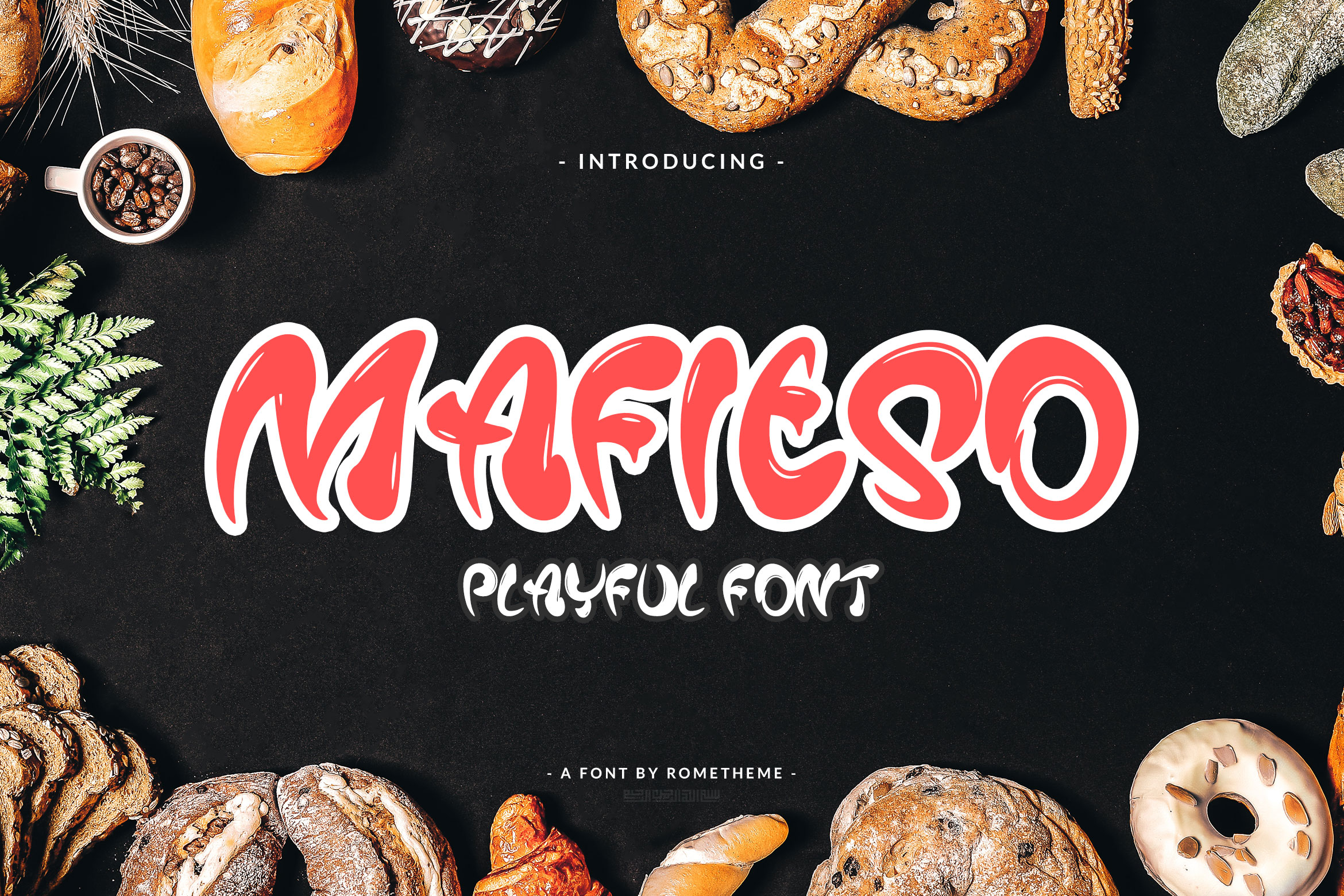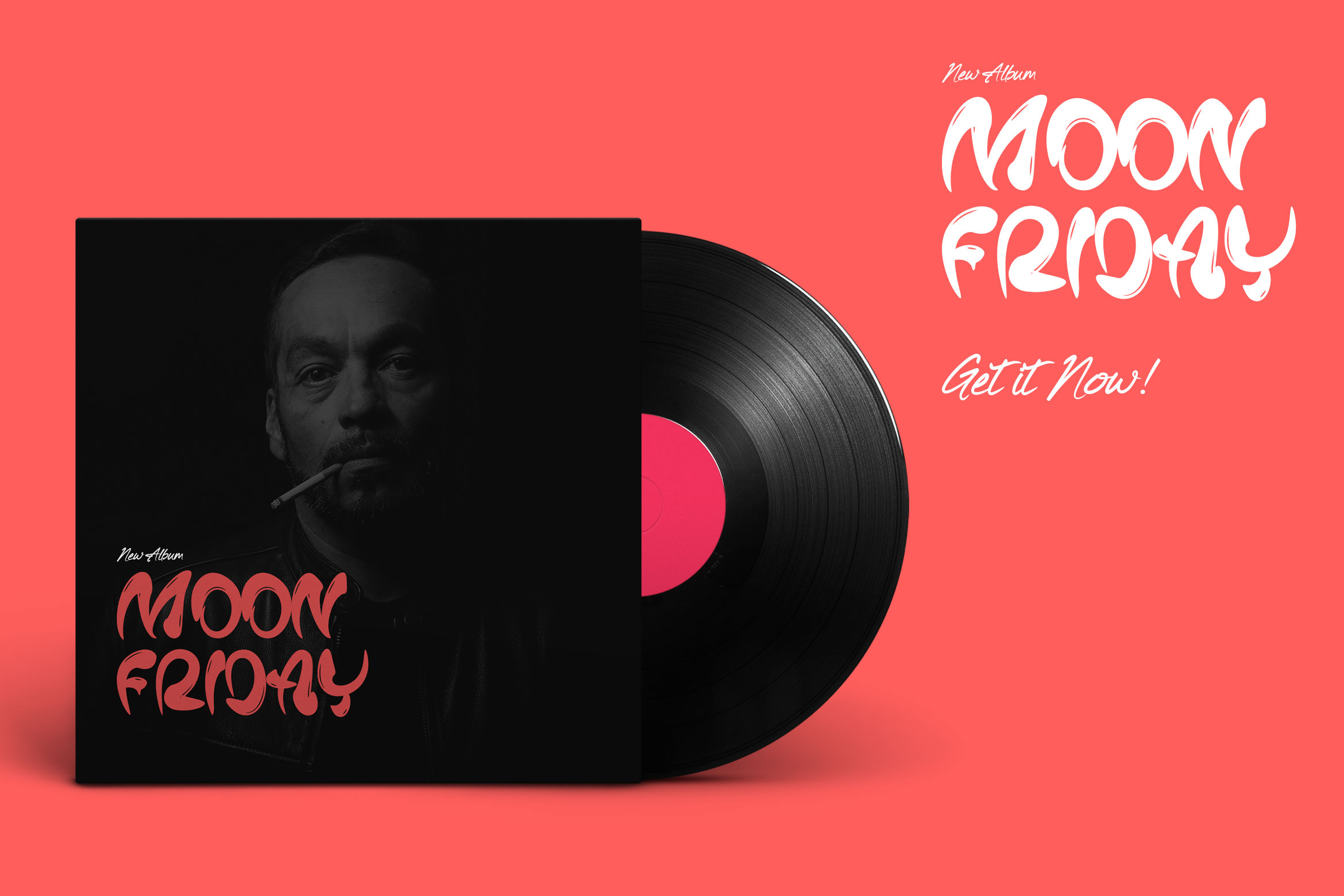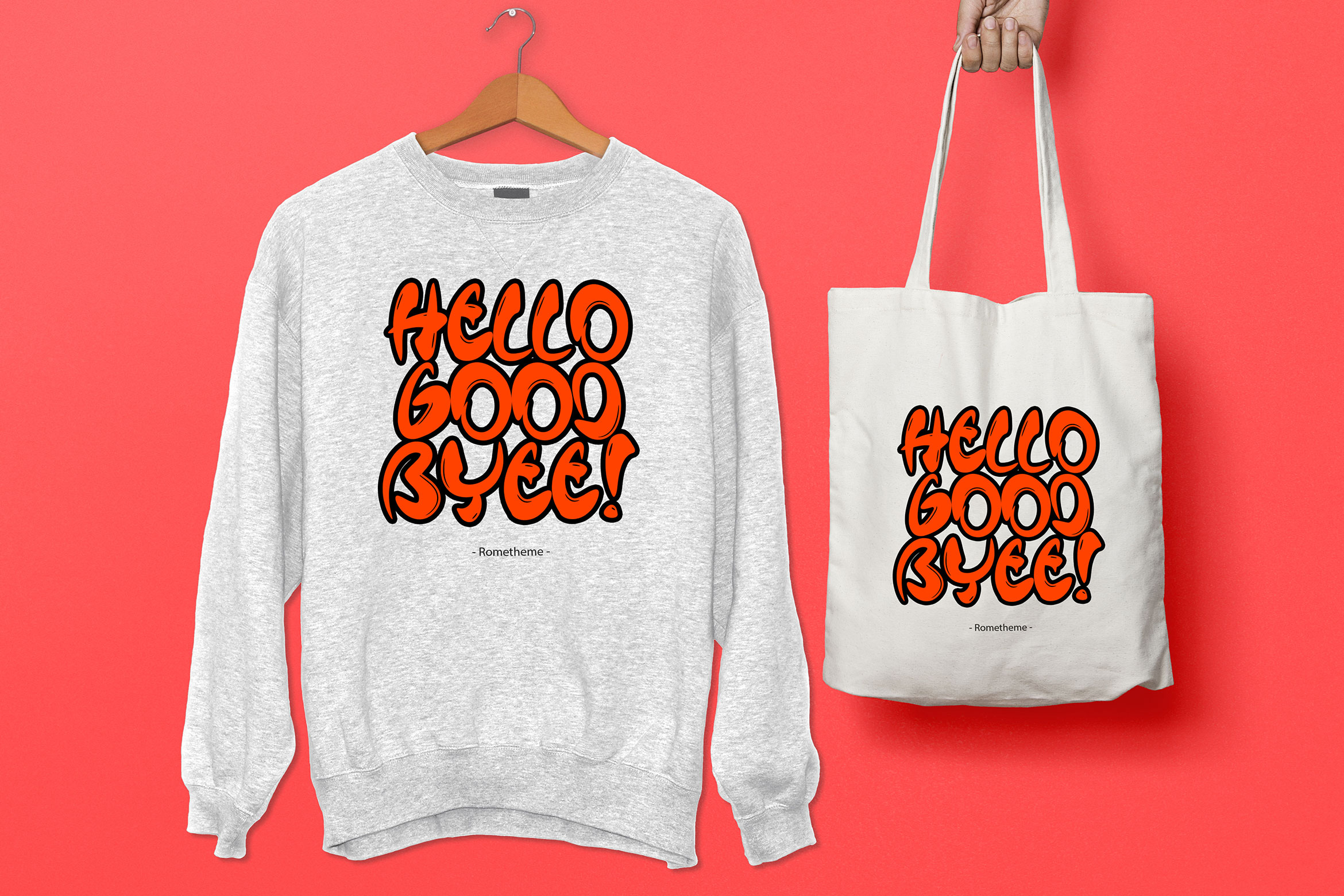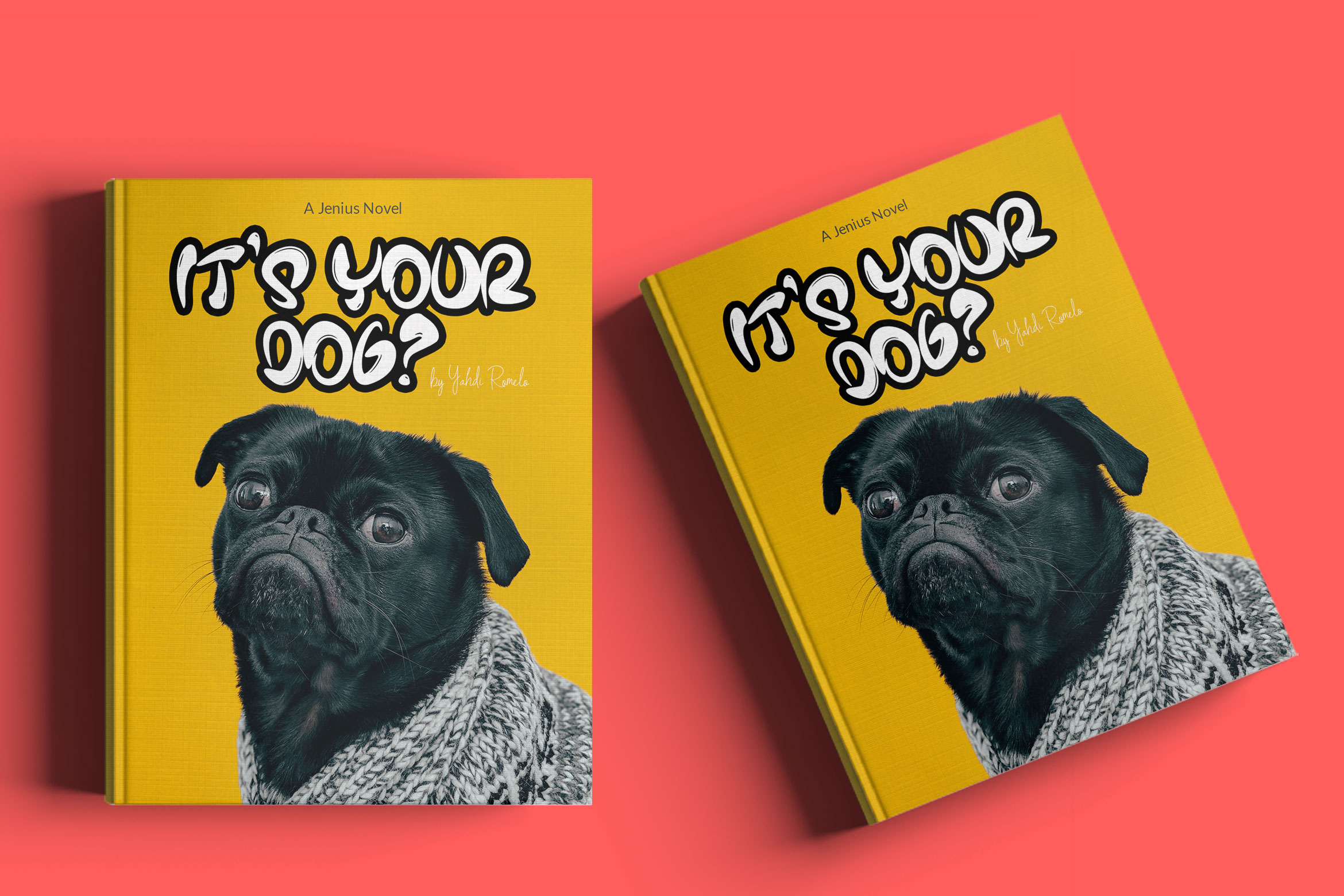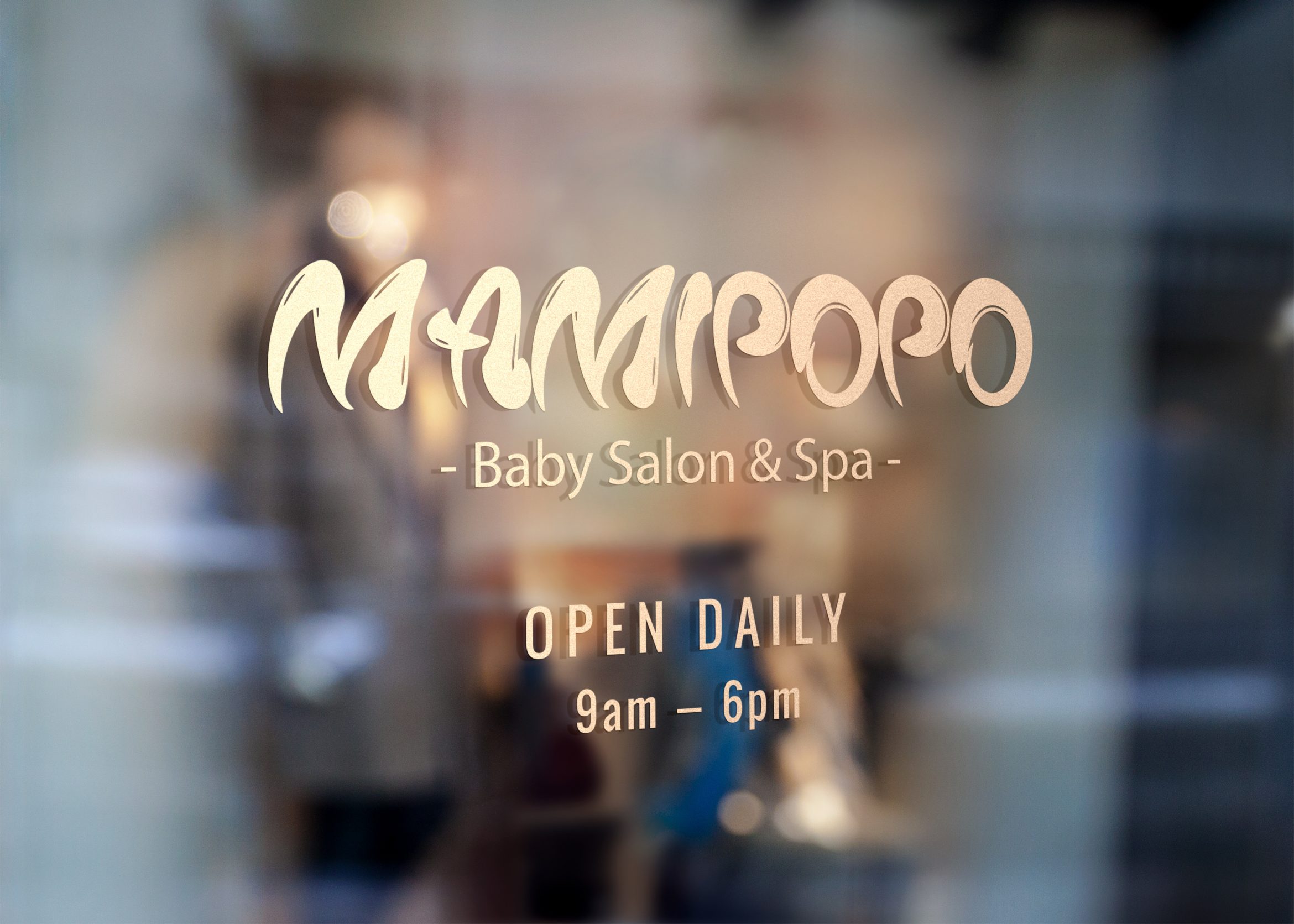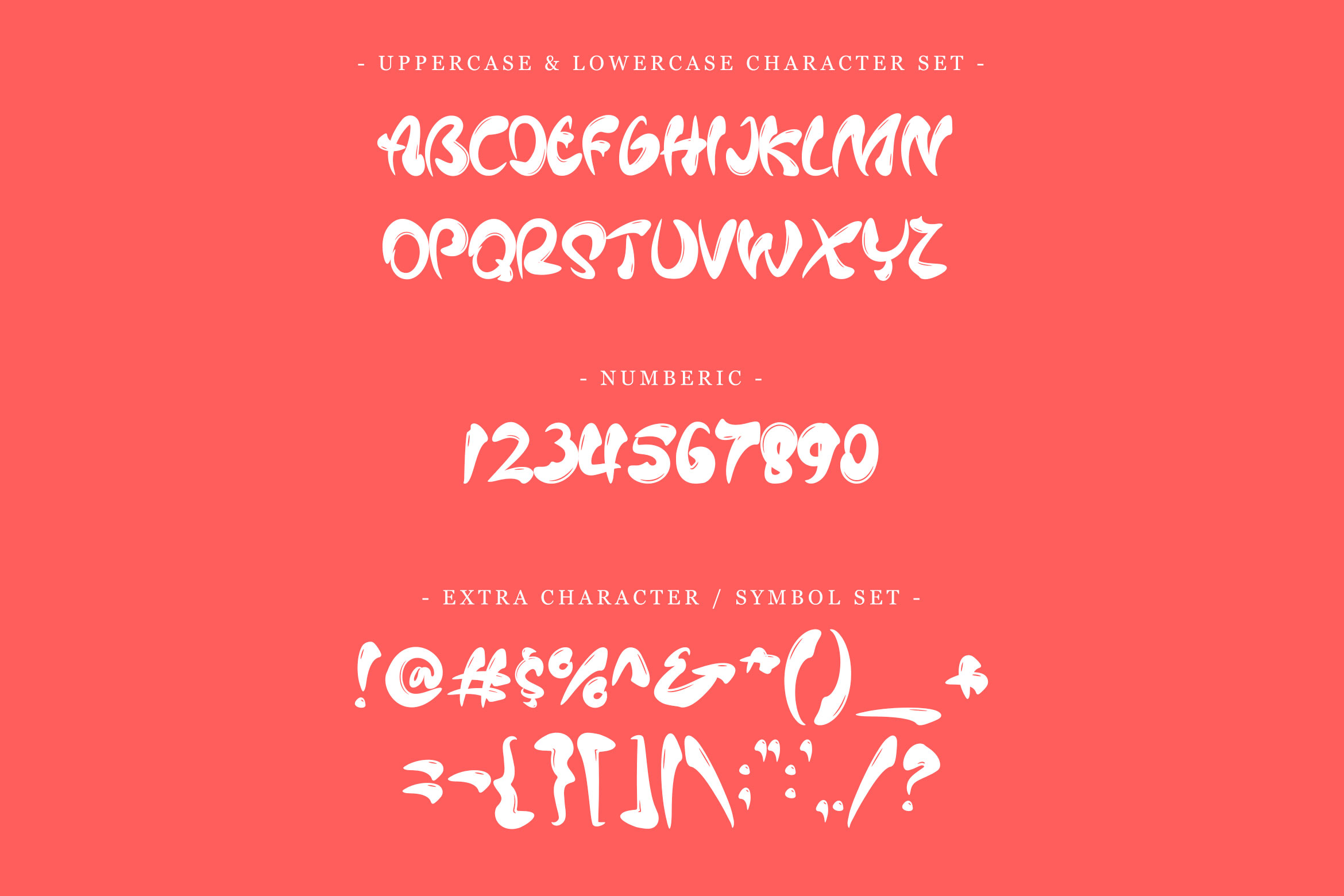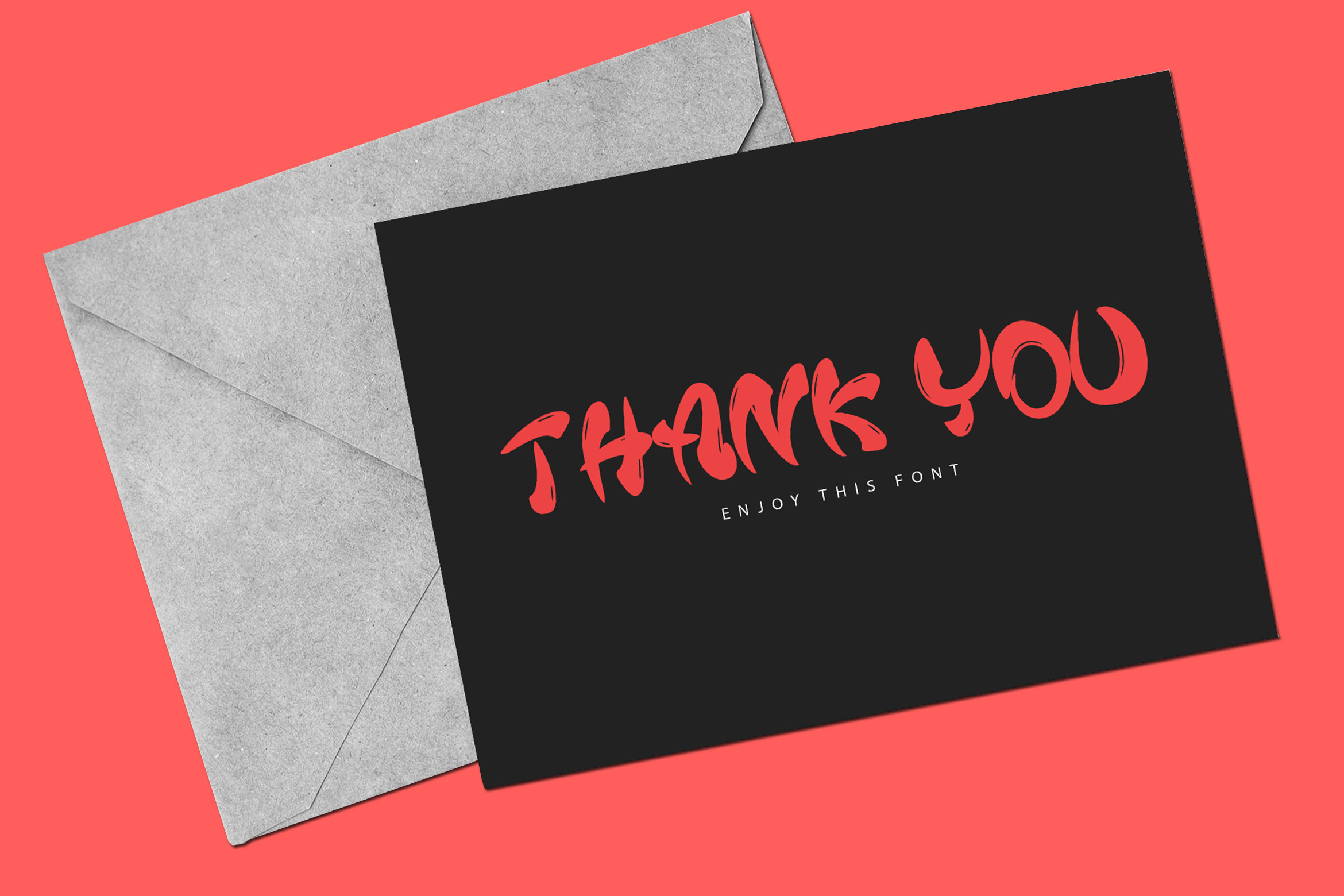
Mafieso is a delightful and playfulย font by Rometheme that exudes charm and fun. With its rounded, bubbly letters and heart-shaped accents, this font is designed to bring joy and cuteness to any project. Its bold and cheerful personality makes it perfect for designs aimed at younger audiences or fun, lighthearted themes.
Key Features:
- Bubbly and Rounded Style: Features thick, smooth, and rounded letterforms that give a friendly and cheerful look.
- Adorable Details: Includes subtle decorative elements like heart accents, adding to its charm.
- Versatile Applications:
- Childrenโs content and products
- Greeting cards and invitations
- Branding for playful or youthful brands
- Social media graphics
- Merchandise designs
- High Impact: Bold enough to grab attention while maintaining a cute and approachable vibe.
Ideal For:
- Designers creating fun, family-friendly projects.
- Brands targeting younger audiences or products with a whimsical theme.
- Personal projects like party invitations, scrapbook designs, or DIY crafts.
Applications:
- Childrenโs Content: Perfect for kidsโ books, toy packaging, or educational materials.
- Event Materials: Great for baby showers, birthday party invitations, or Valentineโs Day cards.
- Merchandise: Ideal for t-shirts, mugs, or stickers with cute slogans.
- Social Media: Adds a playful tone to Instagram posts, stories, or ads.
- Branding: Perfect for candy shops, toy stores, or lifestyle brands with a fun image.
Mafieso is the ultimate font for creating joyful and lighthearted designs. Its cute and bold handwritten style ensures that your projects will stand out with a fun, bubbly personality. Perfect for adding a touch of playfulness to any creative endeavor!